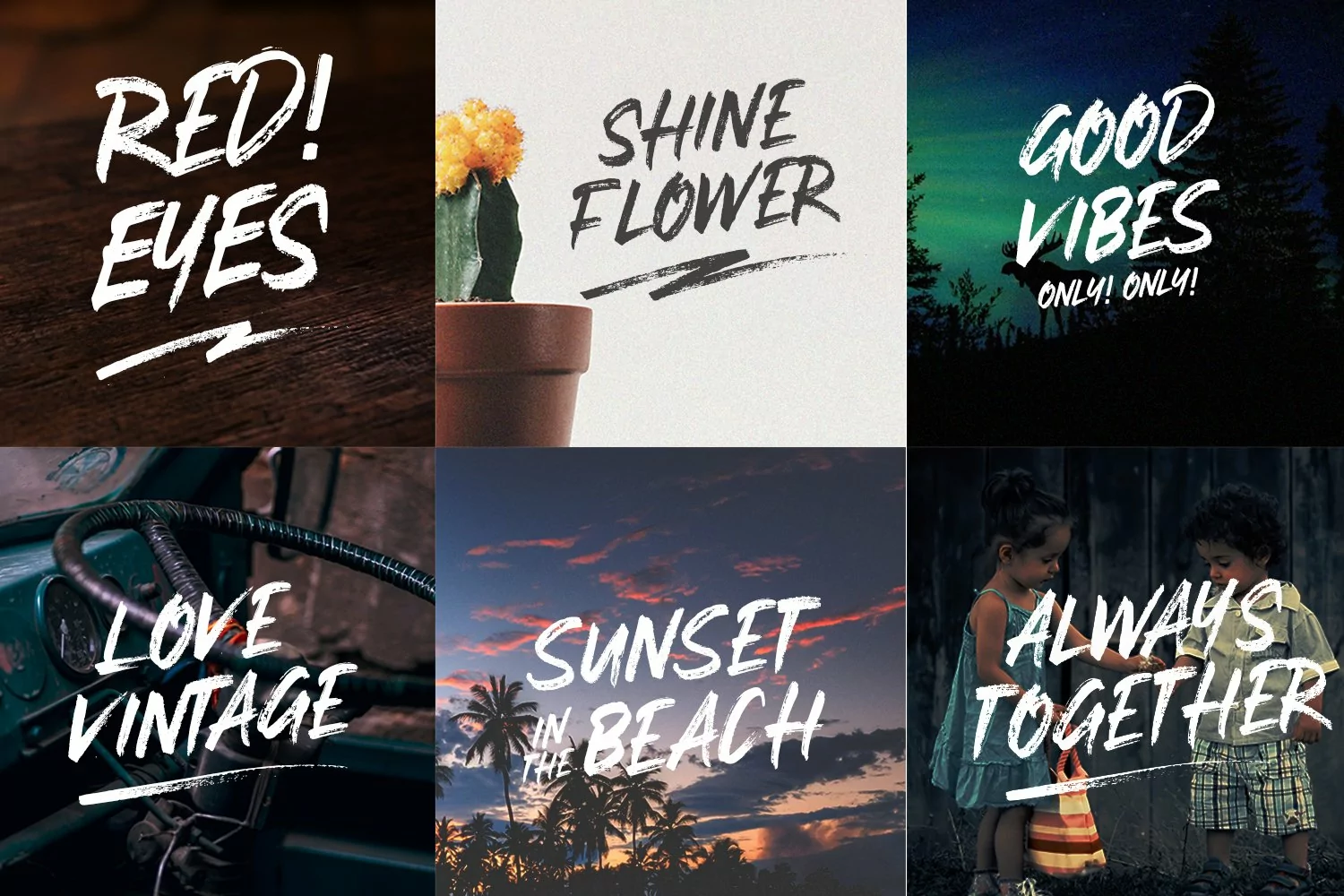
Stay Weird - Brush Font + Swashes
Stay Weird - Brush Font + SwashesHi everyone, this time we made a font of ink streaks on paper. We created this font using a brush. We love to make it, because this is a work of art itself. Making it through a long process. Every letter we make has always maintained its distinctive style. We hope you are all happy with our latest font.What you get dear! You wil get:
• Stay Weird - Brush: Stay Weird is an all uppercase font.
• Stay Weird - Swash: 10 dashing swashes to add punch to your designs